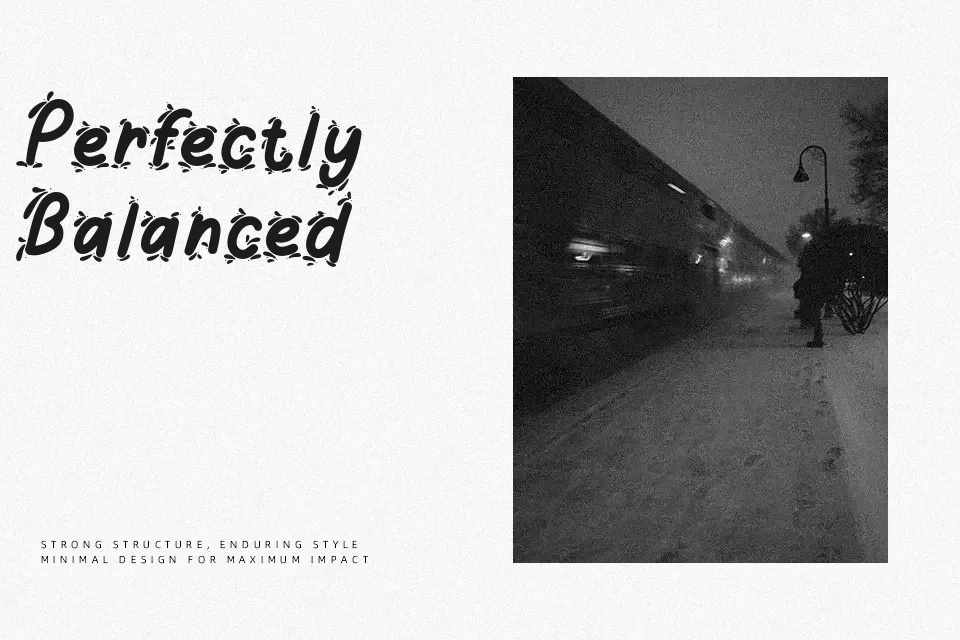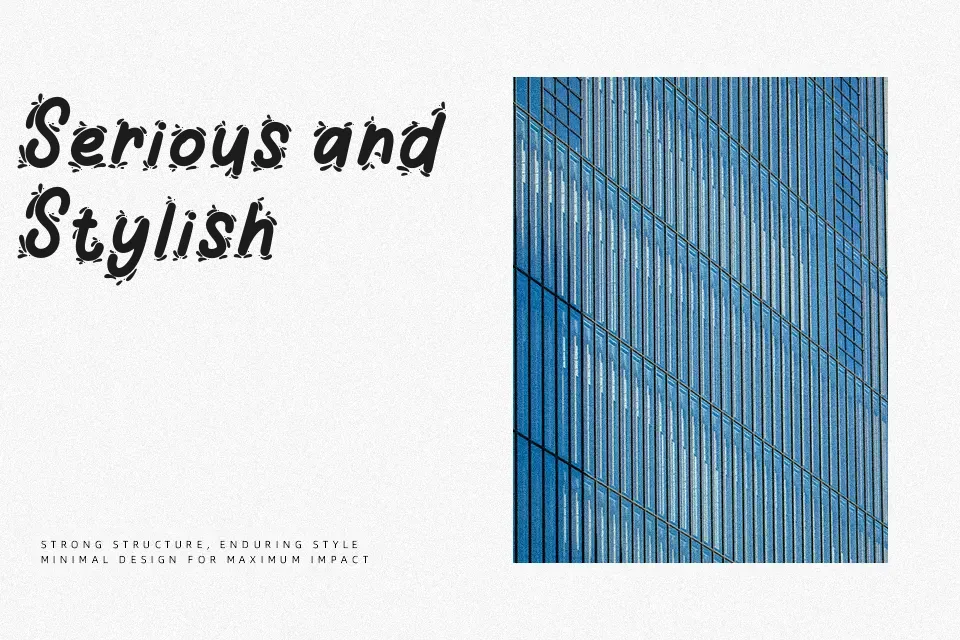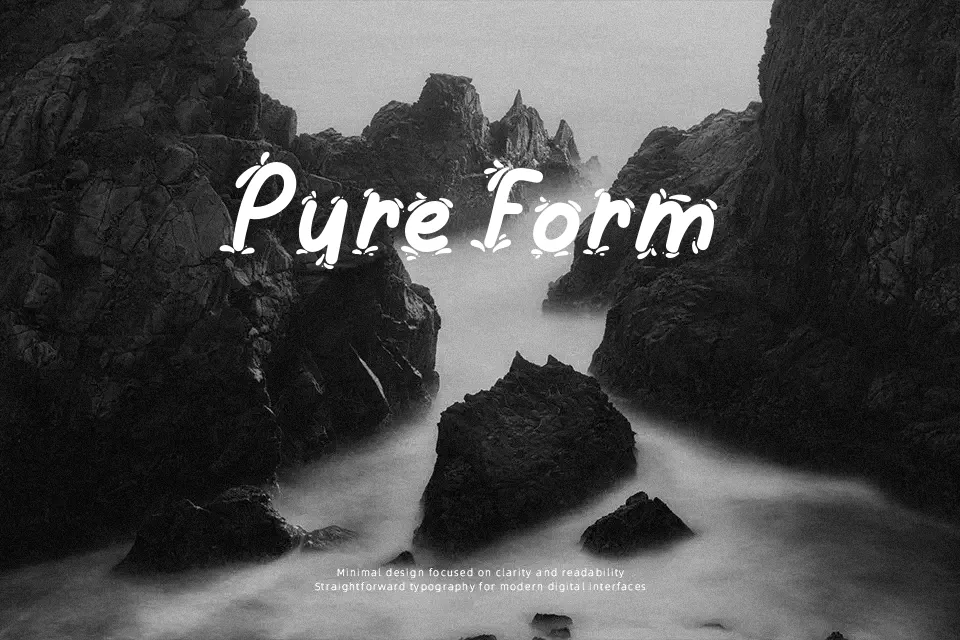
Summer Splash Font
Designed by Attype Studio
Summer Splash Font uses chunky, rounded letterforms with lively curves and an informal comic display rhythm. Its strokes appear heavy and smooth, while the broad proportions give short words a strong, friendly presence. Spacing is generally open enough to keep individual characters recognizable in large headlines, and the varied forms add personality to titles, labels, and celebratory graphics. The typeface reads most comfortably at display sizes, where its soft shapes and expressive silhouette remain clear. In smaller settings, the dense weight and decorative character treatment can make longer text feel crowded and less efficient to scan.
Best For: children’s party invitations,colorful poster headlines,summer event graphics,social media announcements
Perfect for headline, kids, and poster, with a bold and cartoon style.